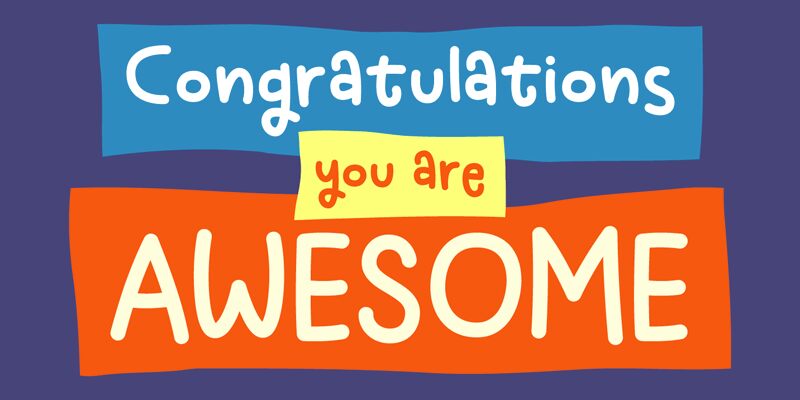
Nosy Note font by Pizzadude is a light-hearted display typeface with a comic touch. The irregular shapes of the handwriting letters make the font playful, casual, and whimsical. All of these characteristics give Nosy Note an organic and friendly feel that helps create entertaining designs while grabbing attention.
The free display font can be used in typography T-shirts or on packaging. It is an ideal choice for publishing magazines, newspapers, books, book covers, notebooks, or any other paper publications as well. Try it out too in branding and advertising projects like logos and business cards.